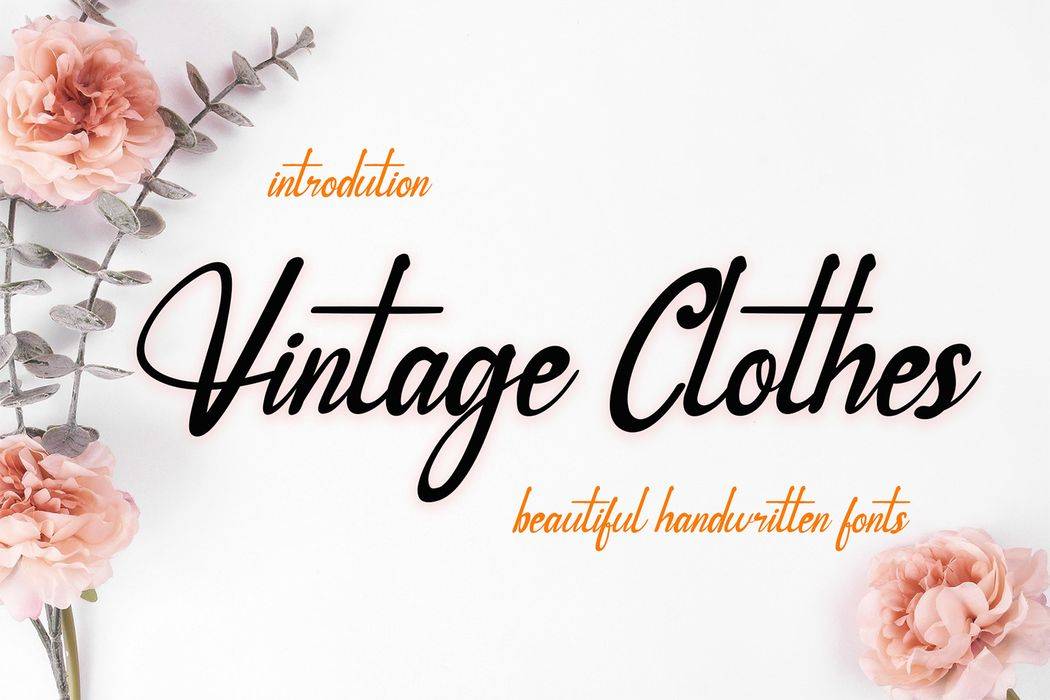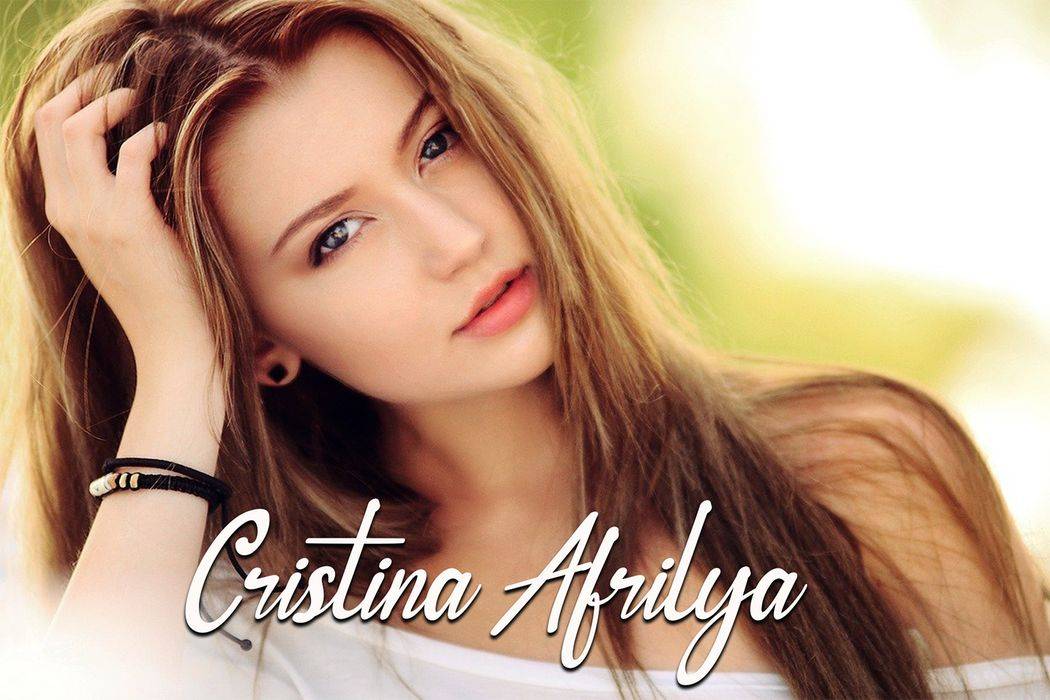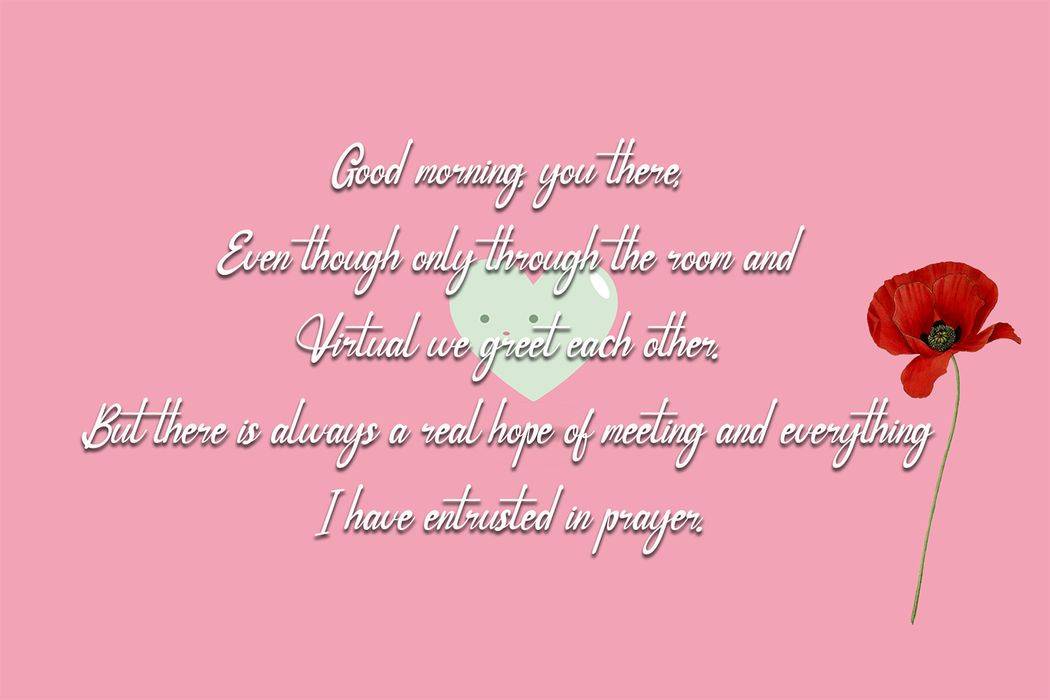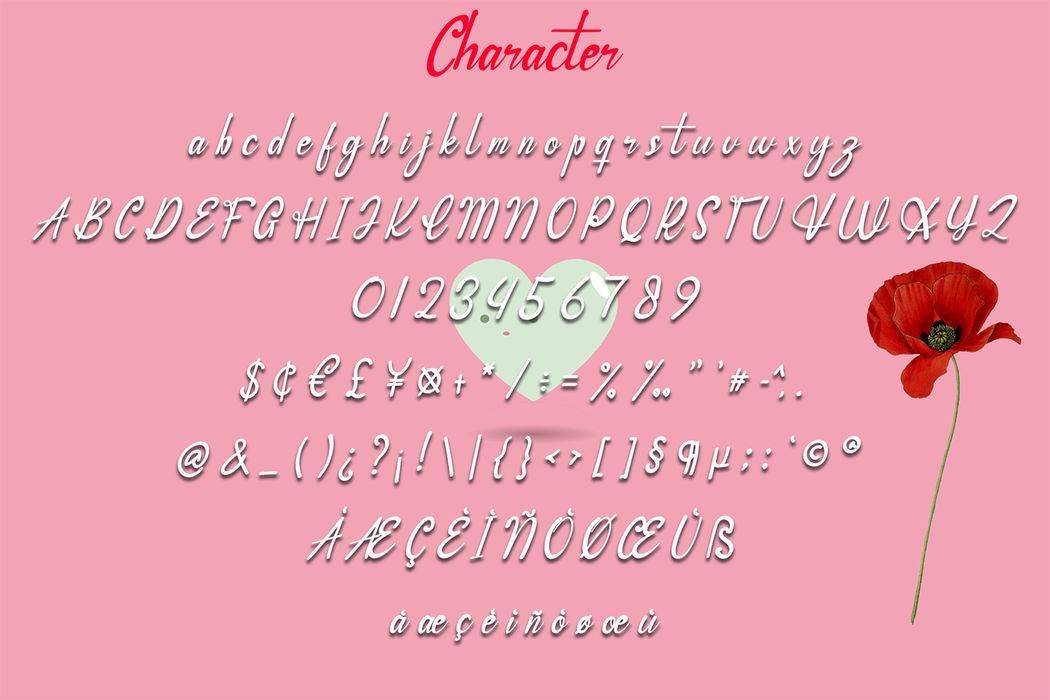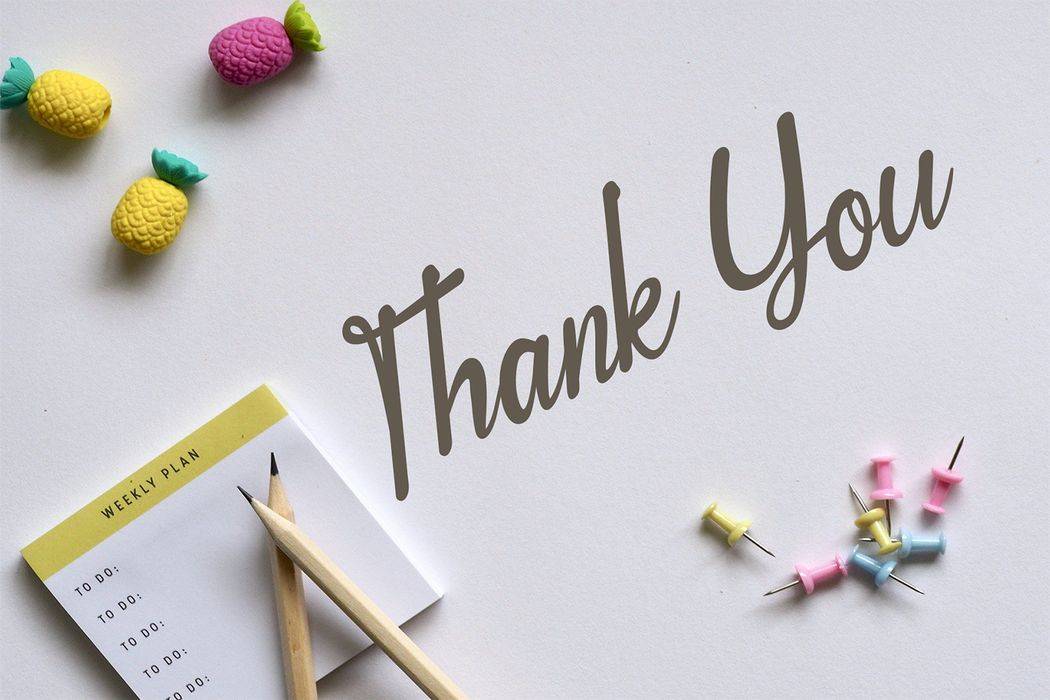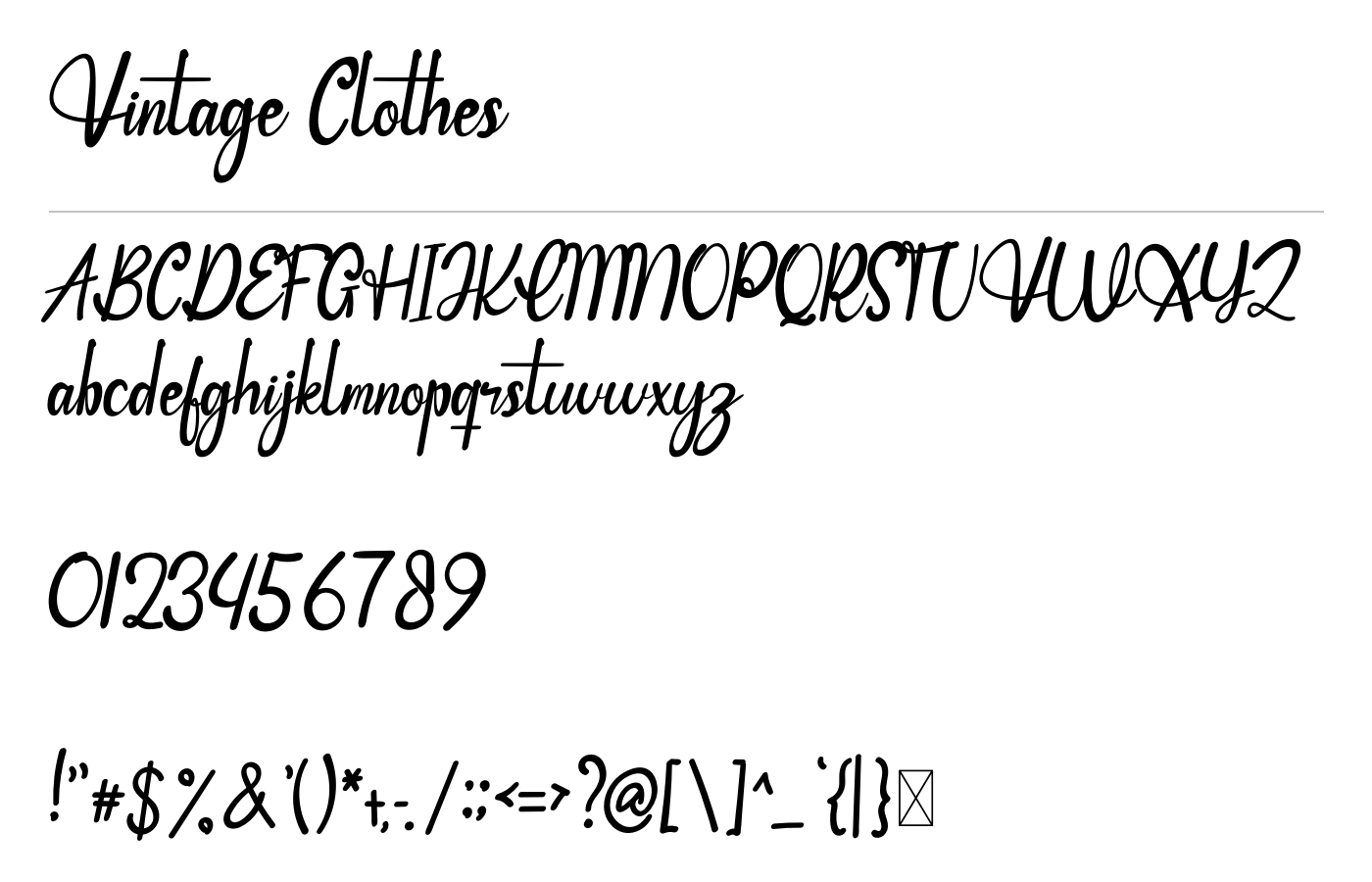
Vintage Clothes Font is a charming script typeface that combines elegance with a hand-lettered, vintage feel. Its smooth, flowing strokes and playful curves make it ideal for fashion branding, logos, and packaging that seek a nostalgic yet stylish personality. This font works beautifully for headlines and creative projects that want to evoke a sense of classic charm and handcrafted quality.
Vintage Clothes Font
About Vintage Clothes Font